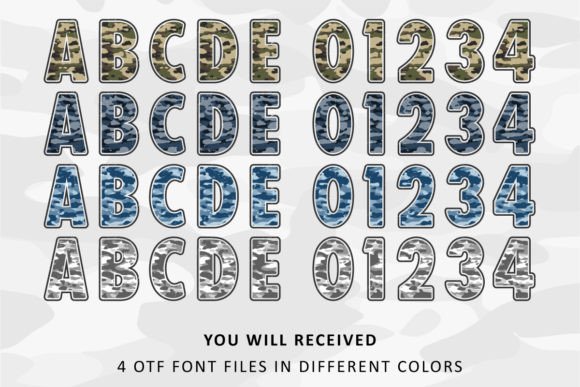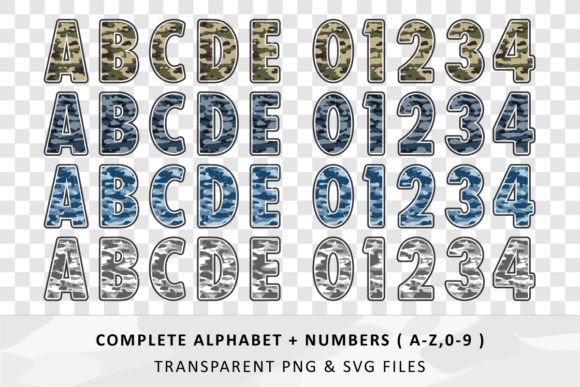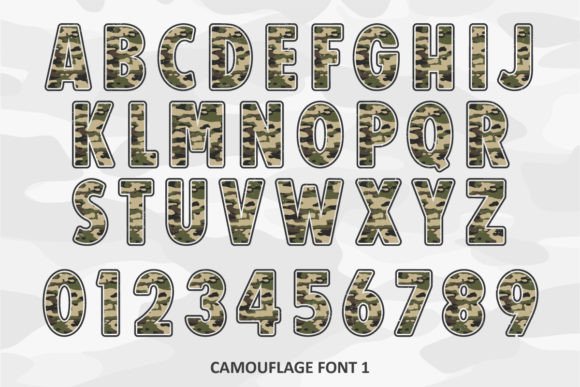
Camouflage Font
Camouflage is a bold military camouflage font that boasts four distinctive patterns with numbers in retro army style that make your designs stand out as a cool and original-looking color font. Perfect for logotypes, headlines, corporate identity, brand identity, the apparel industry, posters, music, movies, games, magazines, books, comics, and cartoons. Add it confidently to your projects, and you will love the results.The black version of this font is compatible with Cricut Design Space and other cutting machines.Note! The color version of this font is only compatible with certain design programs incl. PhotoShop, Illustrator, Silhouette, and Inkscape. The OTF and/or TTF files of the color version are not compatible with Cricut. For more information on how to use this type of font please check our Ultimate Font Guide .